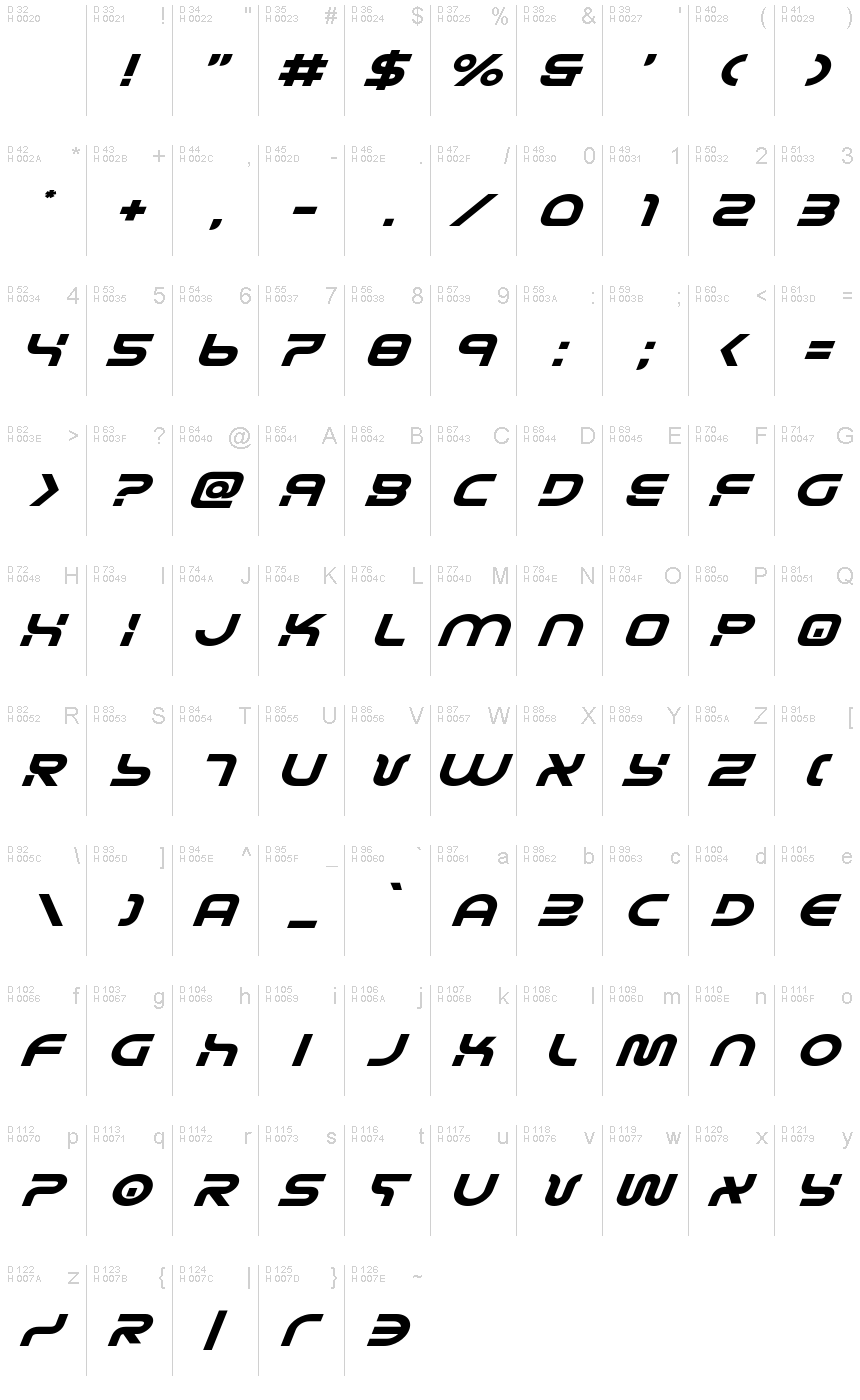
Yukon Tech Expanded Italic
Yukon Tech Expanded Italic, a bold statement piece from the Yukon Tech font family, is the brainchild of designer Daniel Zadorozny. Its futuristic style exudes a sense of innovation and forward-thinking, perfect for projects that aim to stand out. The expanded width of this display font adds a layer of prominence and clarity, enhancing its legibility while making a strong visual impact.
The italicization of Yukon Tech Expanded Italic injects dynamism into every character, suggesting movement and energy that propels the viewer's eye across the text. With its bold weight, this font dominates design space with confidence and authority.
Ideal for headers, logos, posters, or any creative endeavor that calls for an ultramodern touch, Yukon Tech Expanded Italic is more than just typeface — it's a declaration of cutting-edge design. Its unique characteristics ensure that your messaging not only captures attention but also encapsulates the essence of technological advancement and contemporary aesthetics.
The italicization of Yukon Tech Expanded Italic injects dynamism into every character, suggesting movement and energy that propels the viewer's eye across the text. With its bold weight, this font dominates design space with confidence and authority.
Ideal for headers, logos, posters, or any creative endeavor that calls for an ultramodern touch, Yukon Tech Expanded Italic is more than just typeface — it's a declaration of cutting-edge design. Its unique characteristics ensure that your messaging not only captures attention but also encapsulates the essence of technological advancement and contemporary aesthetics.